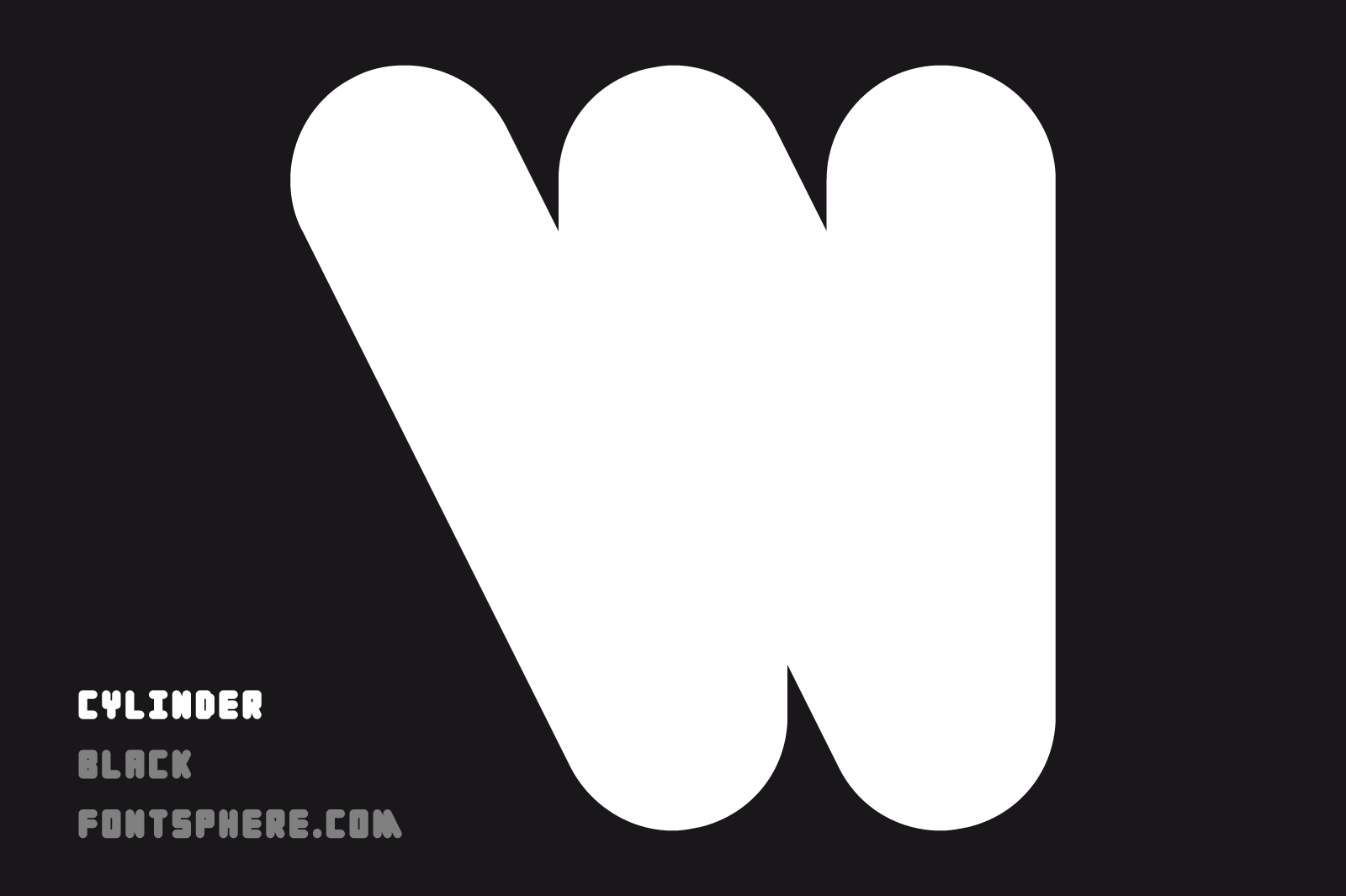
Cylinder Black - FREE Font
Cylinder Black. Member of the Cylinder Font Family
- A unique font containing uppercase characters, numerals and a large range of punctuation (over 220 glyphs).